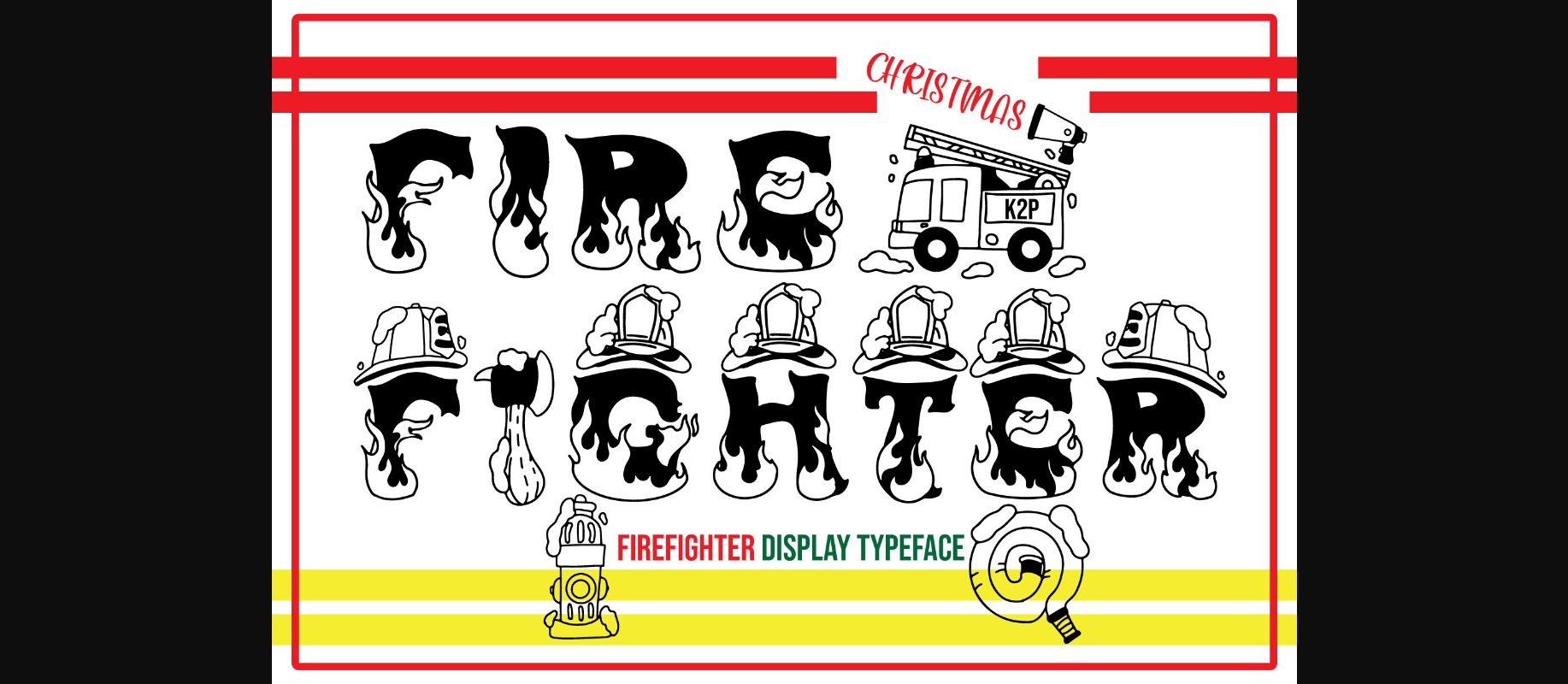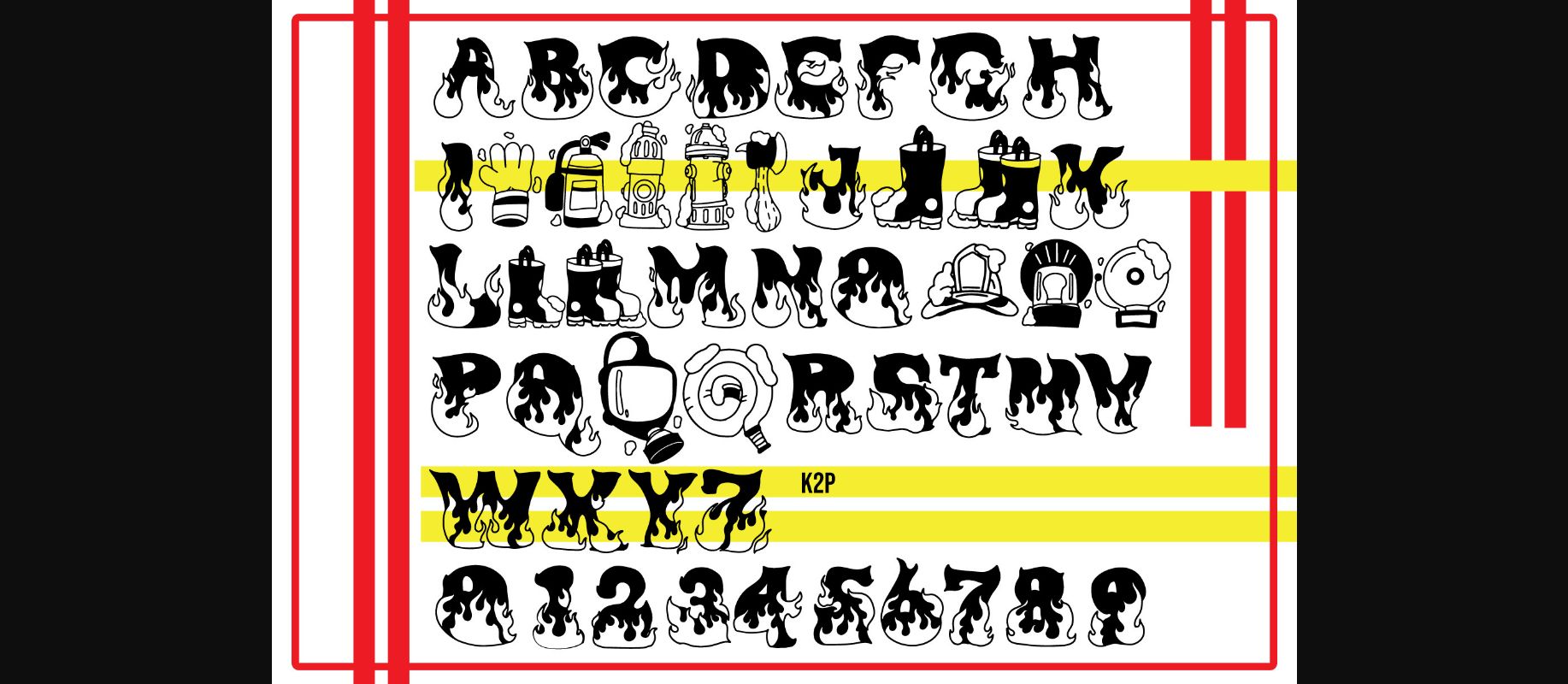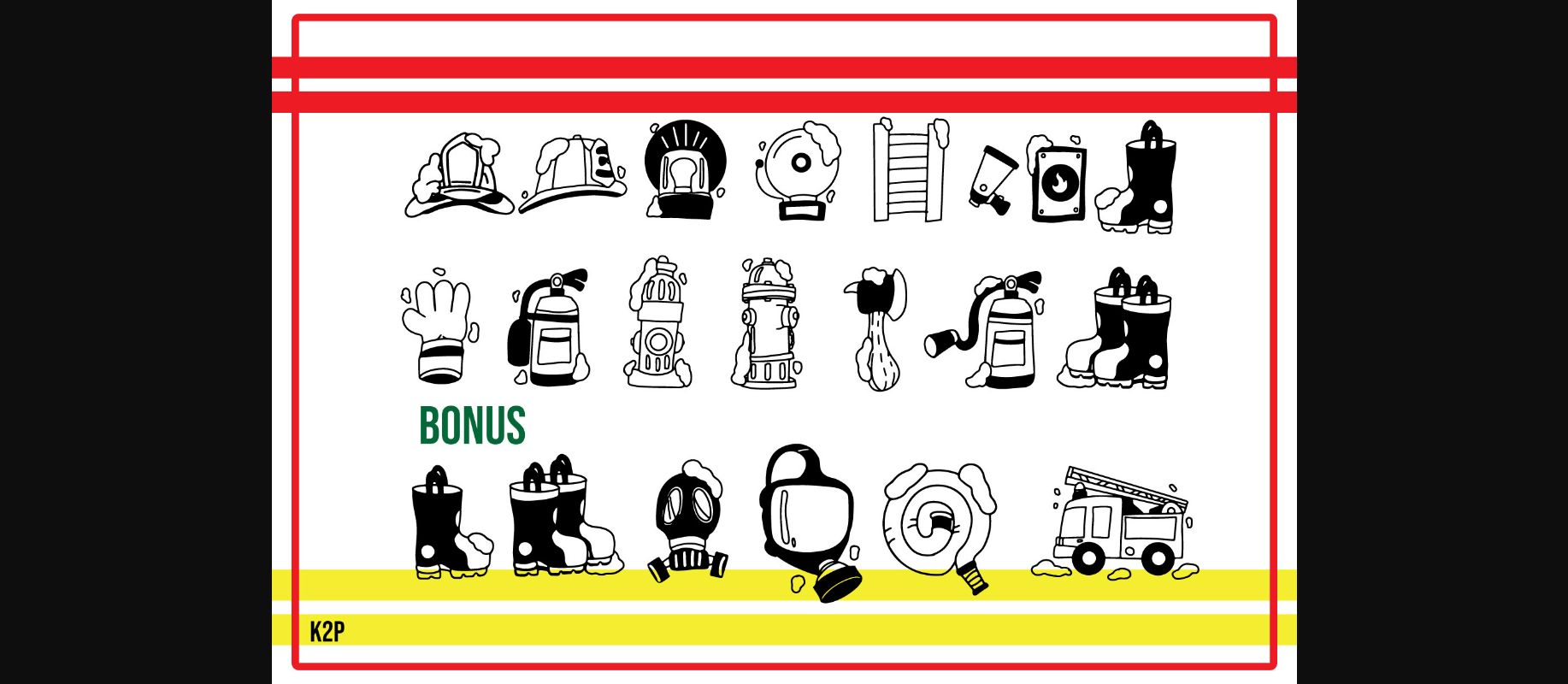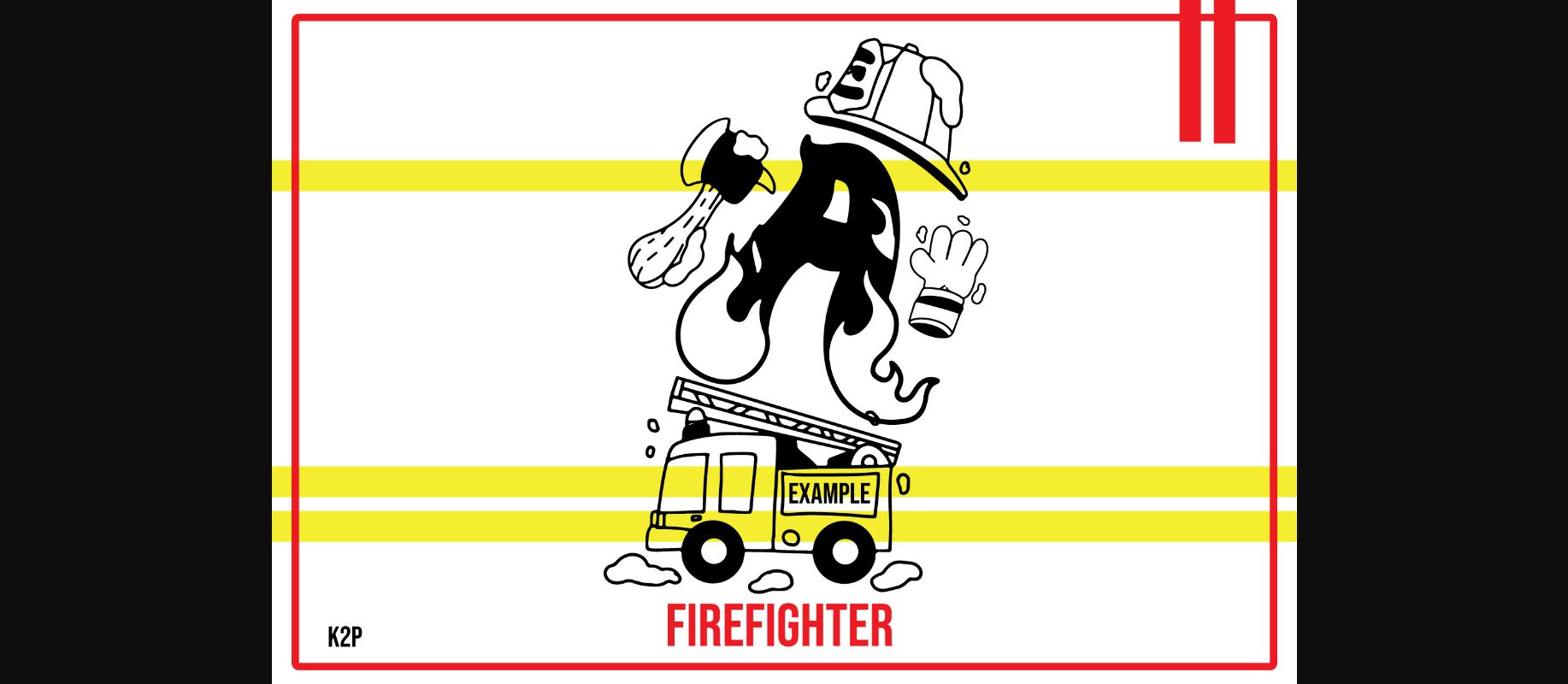
About Firefighter Christmas Font
Firefighter Christmas is a fun, retro, and unique decorative font. Incredibly versatile, this font is suitable for a wide spectrum of applications.